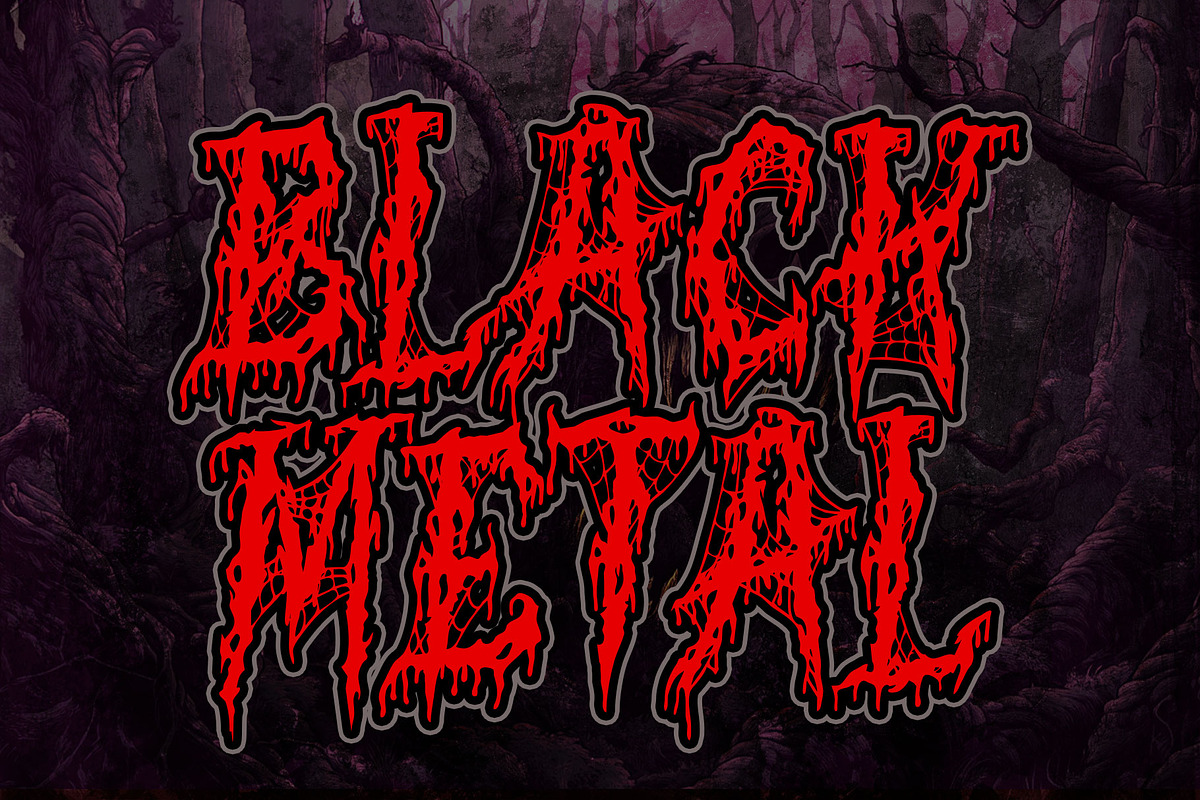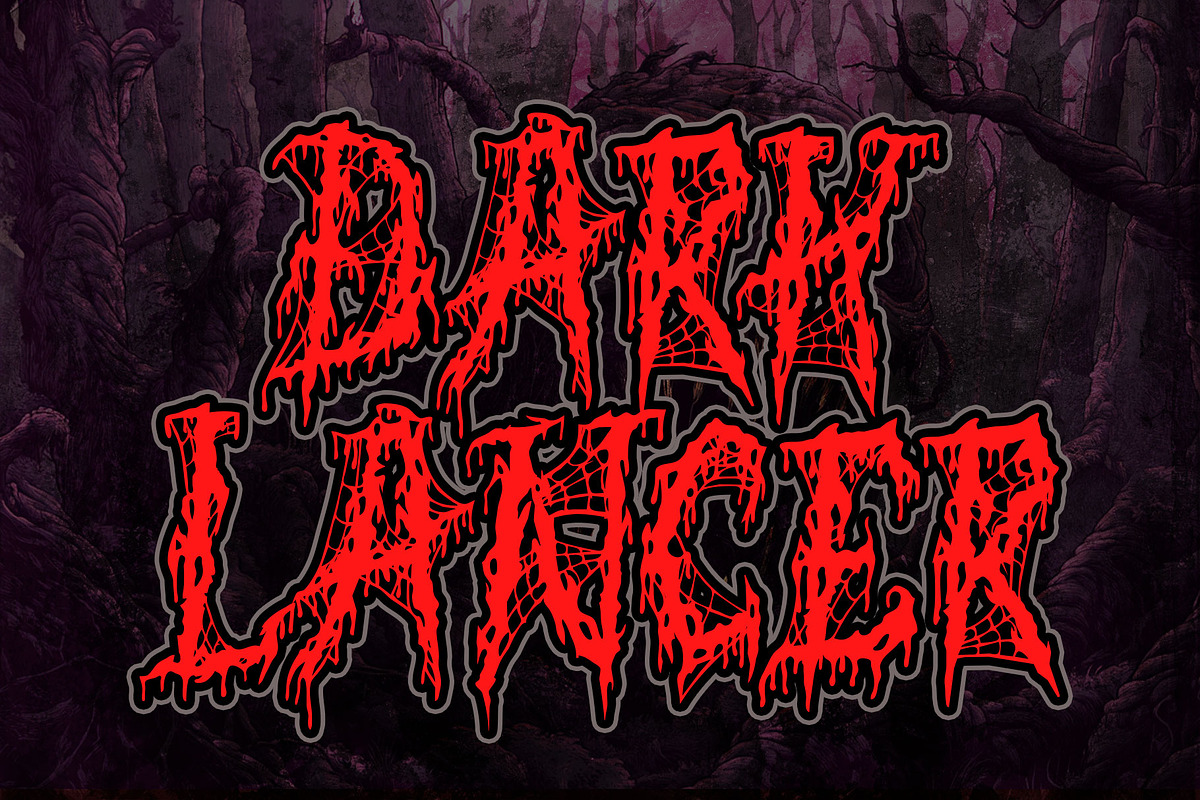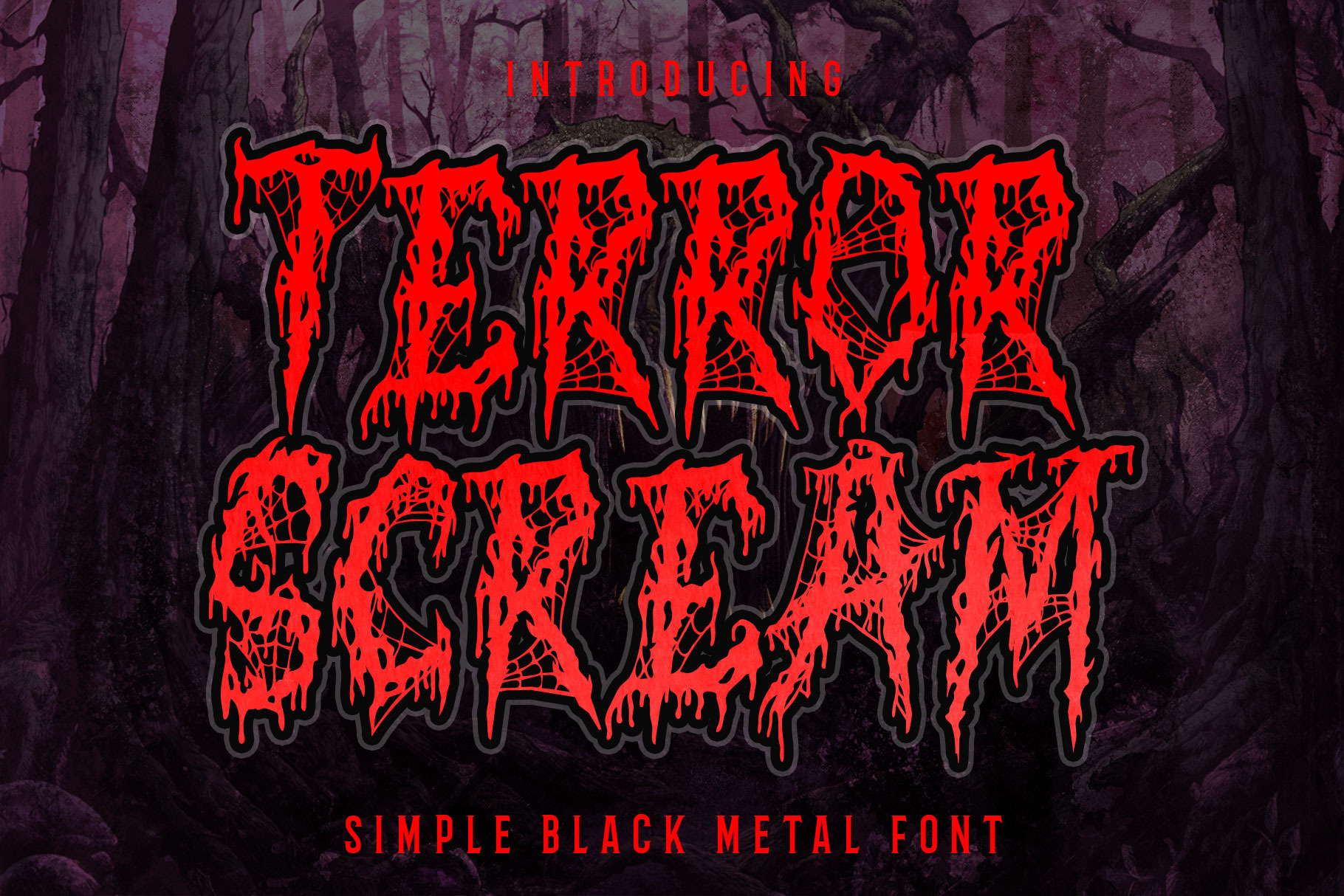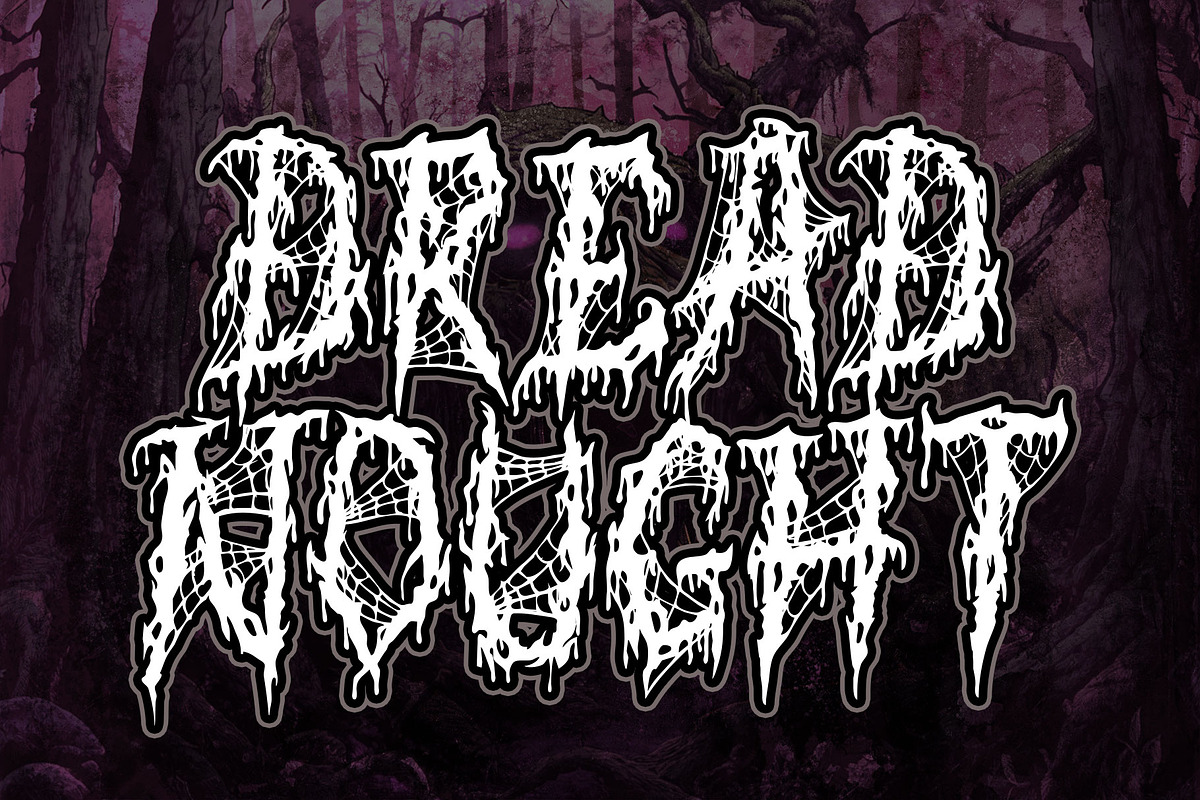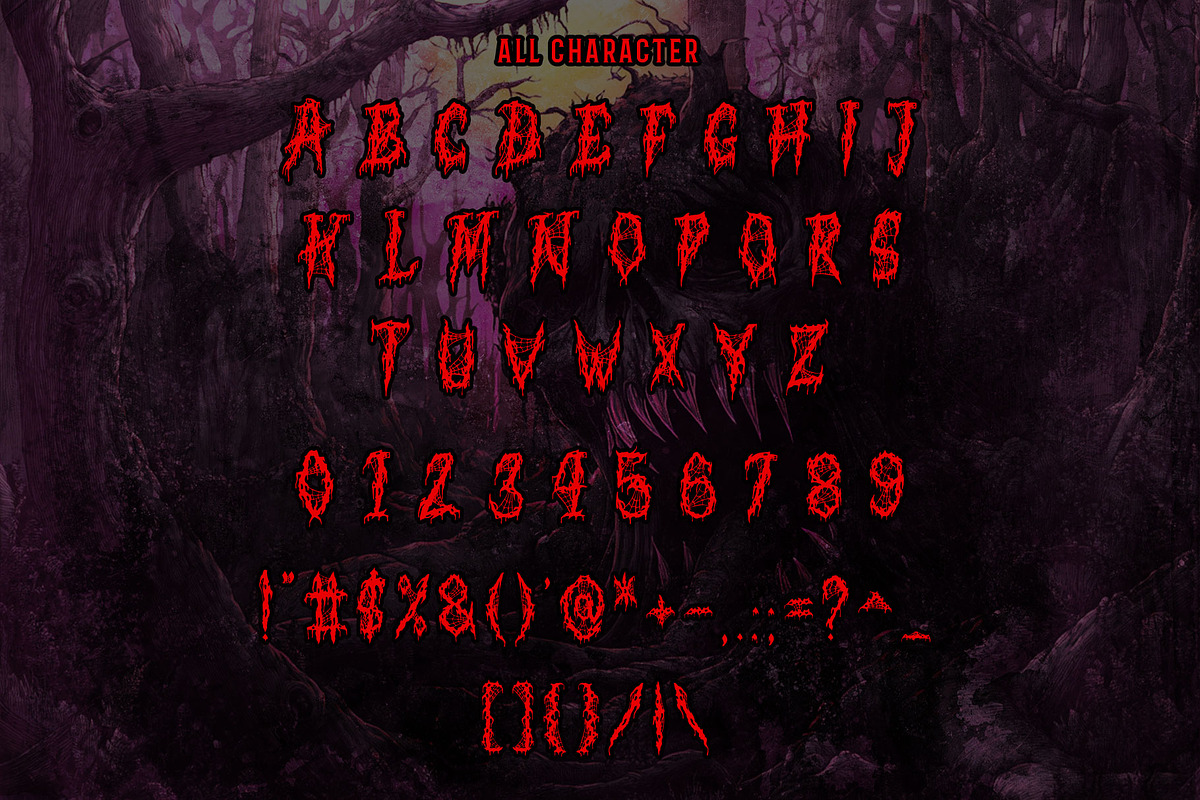
Terror Scream - Black Metal Font
Introducing Terror Scream Trash Metal Font, our bold and aggressive font that’s perfect for capturing the raw energy of metal music. With its sharp and edgy design, Ancient Serpent is ideal for creating designs that reflect the intensity and power of metal bands. So if you’re ready to add a touch of darkness and aggression to your designs, download Terror Scream today and unleash the power and energy of metal music in your designs. Get ready to rock with Ancient Serpent!